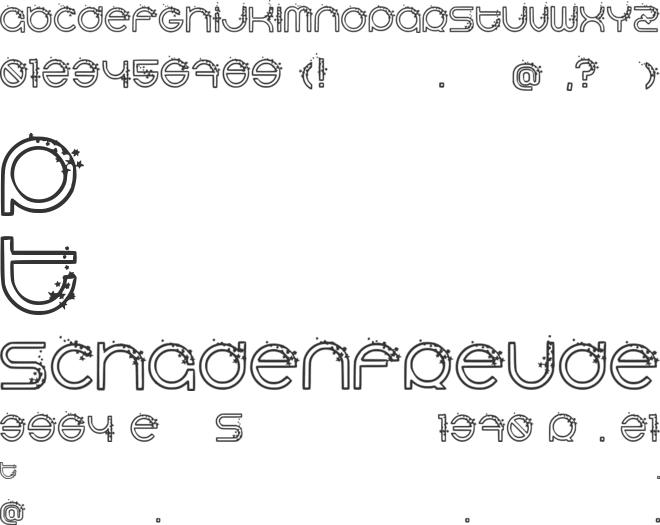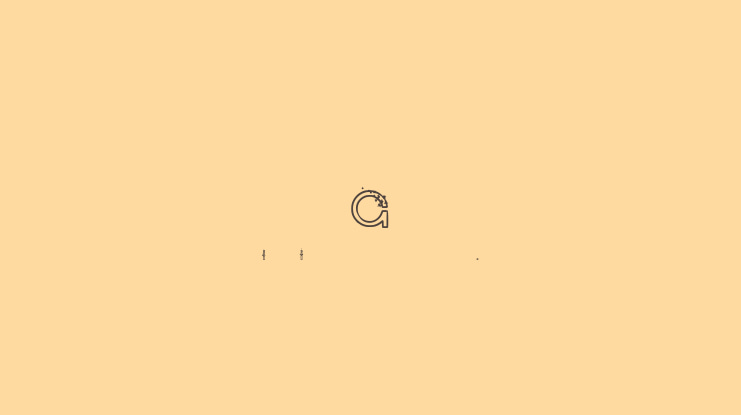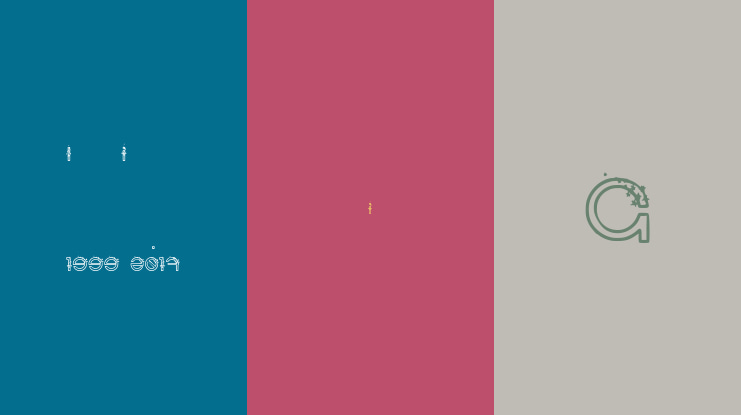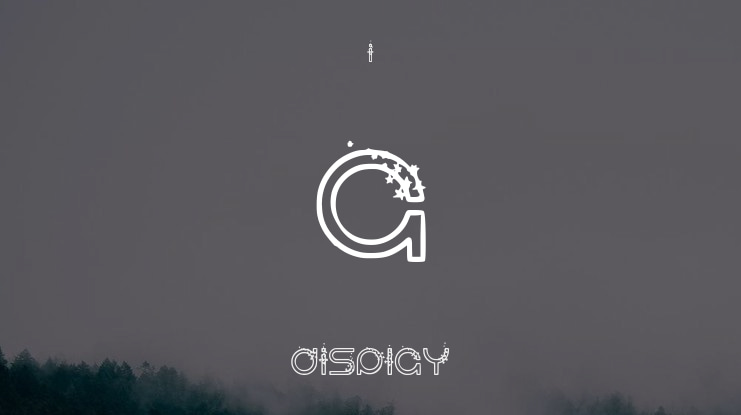
Andoria Font
The Andoria Font is modern, futuristic, minimal, and clean, featuring uppercase multilingual letters, numbers, punctuation, and alternate characters. It includes English uppercase letters, basic punctuation, and numbers.